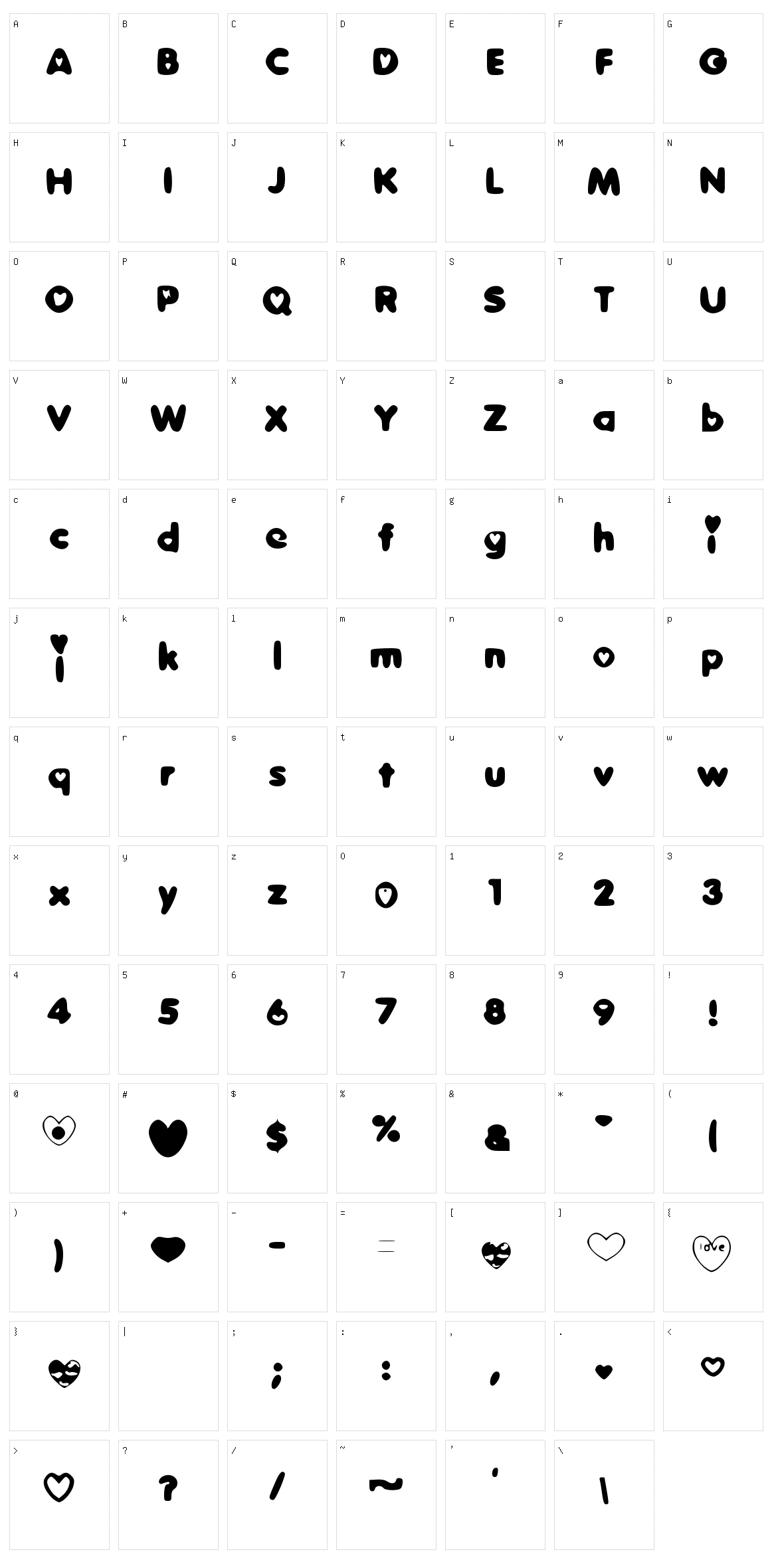
The free font Sweet Love is carefully designed by MiniCandy, showcasing a thoughtful balance of creativity and usability and falls under the Valentine font style. When you download the ZIP file, it contains only 14.71 KB of font files, making it lightweight and quick to download. Please review the license details below to understand permitted usage and distribution rights. If license information is not available, we recommend using this font for personal projects only or contacting the author directly for commercial usage permissions.